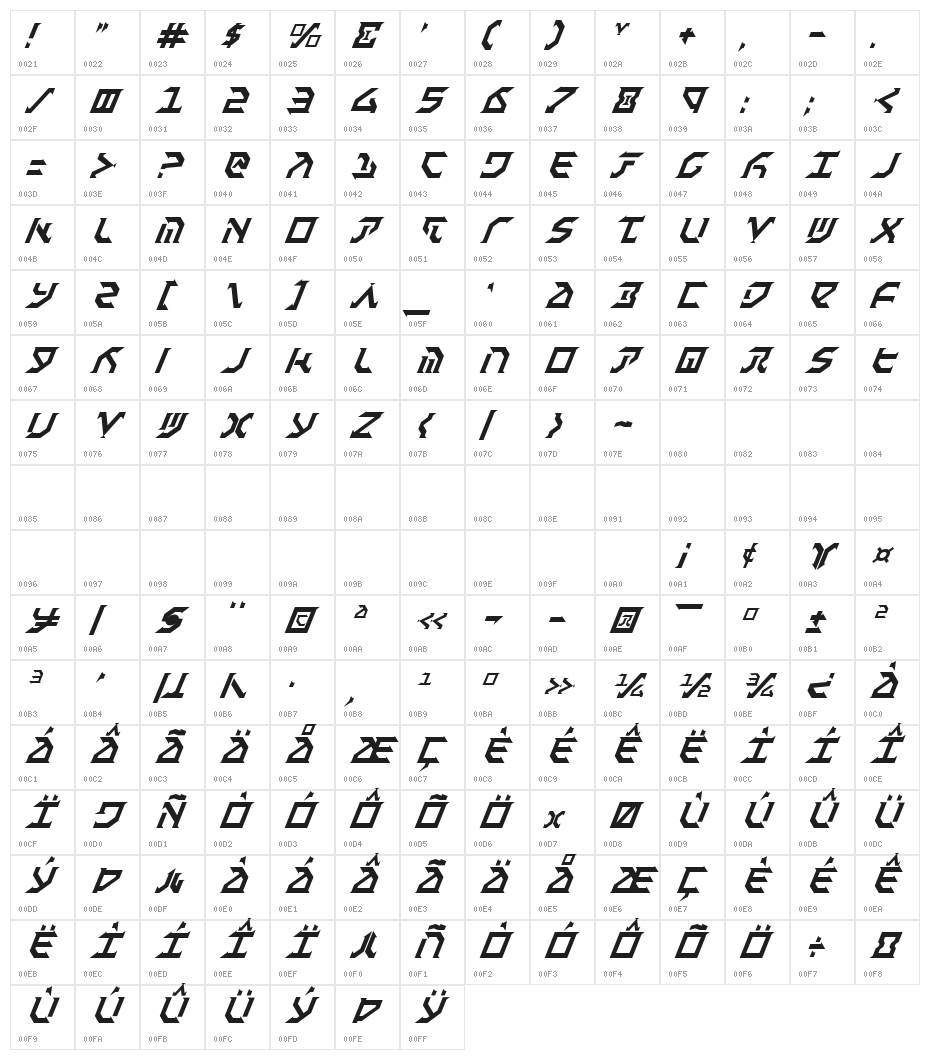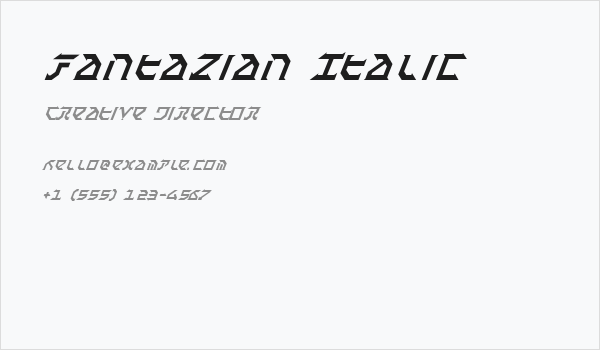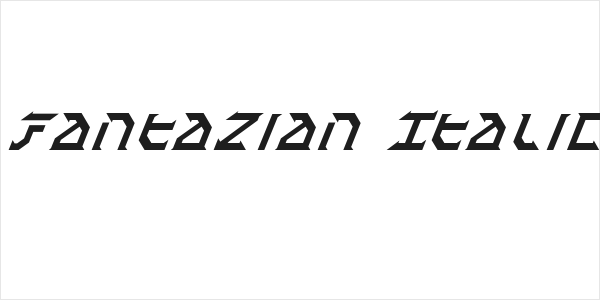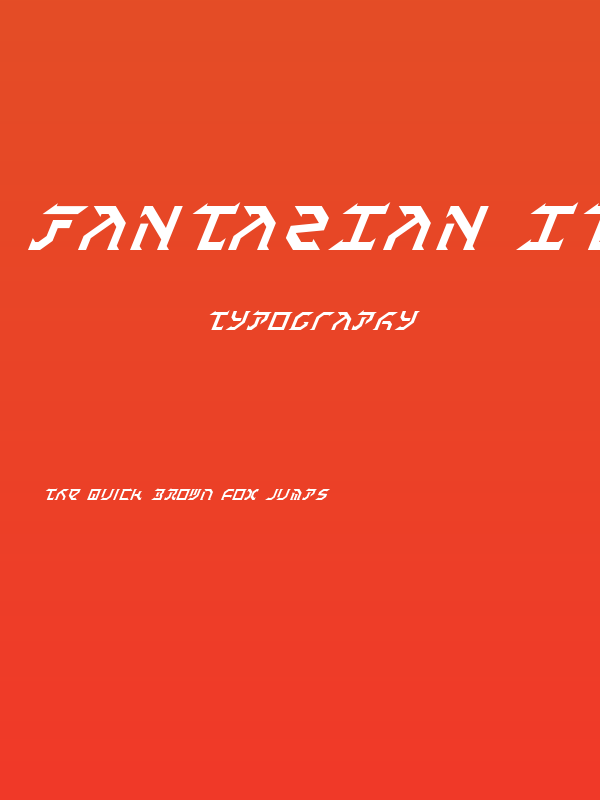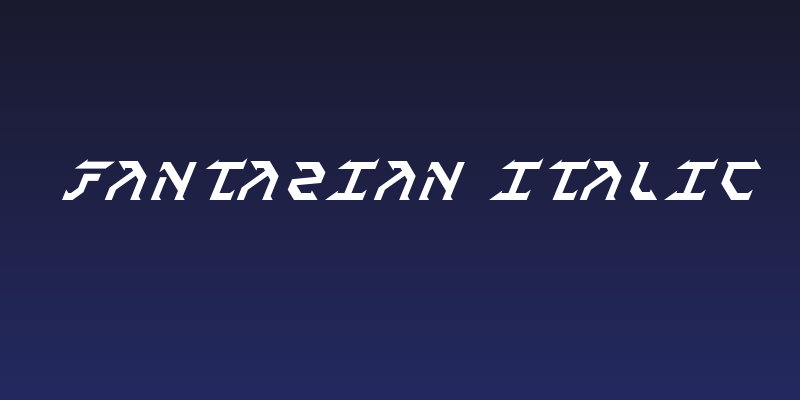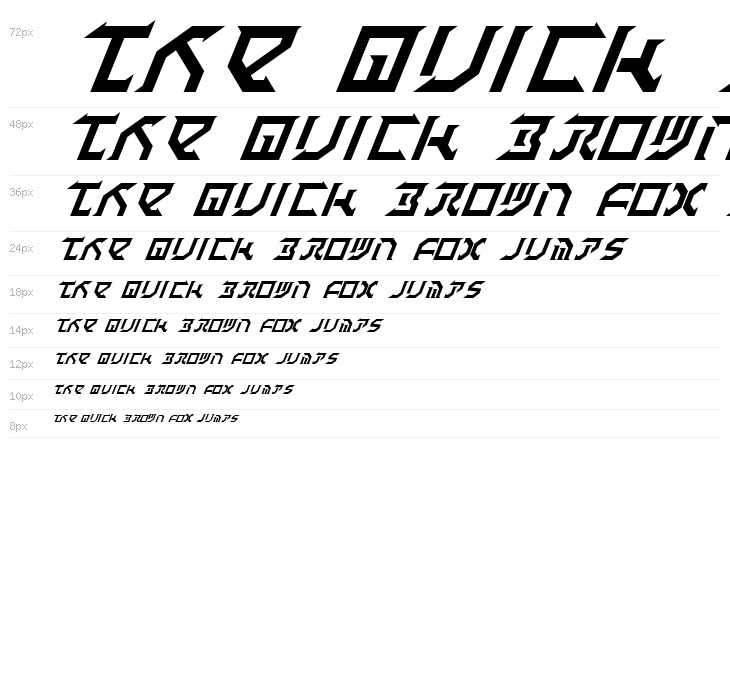
Fantazian Italic Font
Fantazian Italic Description
This font features a bold and angular design, characterized by sharp edges and a futuristic aesthetic. The letters are slanted, giving an italicized appearance that enhances its dynamic and energetic feel. The uppercase and lowercase letters maintain a consistent style, with geometric shapes and pointed terminals. Numbers and special characters are designed to match the overall angular theme, ensuring uniformity across all glyphs. The font's unique style makes it stand out, suitable for projects that require a modern and edgy look.
Proposed ProjectsIdeal for sci-fi themed posters, video game titles, branding for tech companies, and modern graphic design projects.